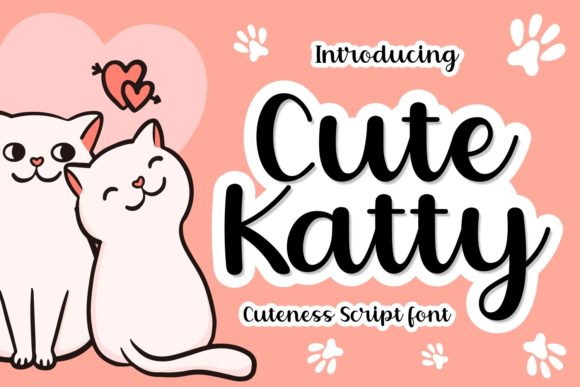
Cute Katty Font: The Sweetest Handwritten Font to Brighten Up Your Creations
Are you looking for a font that exudes joy and sweetness? Look no further than Cute Katty, a delicate and well-balanced handwritten font that’s sure to brighten up any creation. In this article, we’ll dive into the world of Cute Katty and explore its features, benefits, and endless possibilities.
What is Cute Katty Font?
Cute Katty is a sweet, delicate, and well-balanced handwritten font that’s perfect for adding a touch of warmth and personality to your designs. This font is designed to exude joy and happiness, making it ideal for projects that require a playful and whimsical feel.
With its smooth and flowing lines, Cute Katty is a versatile font that can be used for a wide range of applications, from digital projects to print materials. Whether you’re creating a logo, social media graphics, or a website, Cute Katty is sure to add a touch of sweetness and charm.
Key Features of Cute Katty Font
- Handwritten style: Cute Katty is a handwritten font that mimics the natural flow of handwriting, giving it a personal and unique touch.
- Delicate and well-balanced: The font’s delicate and well-balanced design makes it easy to read and perfect for long texts.
- Sweet and playful: Cute Katty exudes joy and happiness, making it ideal for projects that require a playful and whimsical feel.
- Endless variations: With Cute Katty, you can experiment with endless variations, from font sizes and colors to textures and patterns.
10 Creative Ways to Use Cute Katty Font
Cute Katty is a versatile font that can be used in a wide range of applications. Here are 10 creative ways to use Cute Katty:
- Logo design: Use Cute Katty to create a sweet and memorable logo for your brand.
- Social media graphics: Add a touch of personality to your social media graphics with Cute Katty.
- Wedding invitations: Make your wedding invitations extra special with Cute Katty’s delicate and whimsical design.
- Children’s books: Cute Katty is perfect for children’s books, adding a touch of playfulness and imagination.
- Digital journals: Use Cute Katty to create a digital journal that’s both personal and visually appealing.
- Branding and packaging: Add a touch of sweetness to your branding and packaging with Cute Katty.
- Web design: Use Cute Katty to create a unique and visually appealing website design.
- Stationery and cards: Cute Katty is perfect for creating custom stationery and cards.
- Infographics: Add a touch of playfulness to your infographics with Cute Katty.
- Advertising: Use Cute Katty to create eye-catching and memorable ads.
Tips and Tricks for Using Cute Katty Font
Here are some tips and tricks for getting the most out of Cute Katty:
- Experiment with font sizes and colors: Try out different font sizes and colors to add depth and visual interest to your designs.
- Mix and match with other fonts: Combine Cute Katty with other fonts to create a unique and visually appealing design.
- Add textures and patterns: Experiment with textures and patterns to add an extra layer of depth to your designs.
- Use it for headlines and titles: Cute Katty is perfect for headlines and titles, adding a touch of personality and whimsy.
The Benefits of Using Cute Katty Font
Here are some benefits of using Cute Katty:
- Unique and memorable: Cute Katty is a unique and memorable font that’s sure to stand out.
- Easy to read: The font’s delicate and well-balanced design makes it easy to read, even for long texts.
- Versatile: Cute Katty can be used for a wide range of applications, from digital projects to print materials.
- Time-saving: With Cute Katty, you can save time and effort, creating beautiful designs in no time.
In conclusion, Cute Katty is a sweet, delicate, and well-balanced handwritten font that’s perfect for adding a touch of joy and personality to your designs. With its endless variations, versatility, and ease of use, Cute Katty is sure to brighten up any creation. Whether you’re a designer, artist, or simply someone looking for a unique font, Cute Katty is a must-have.